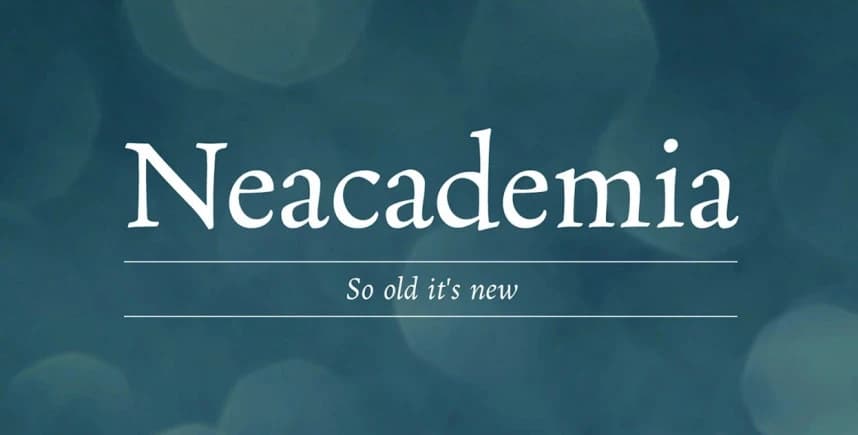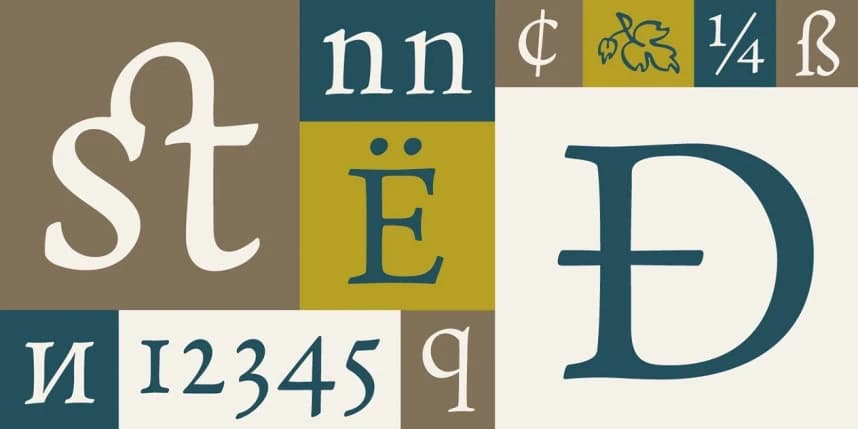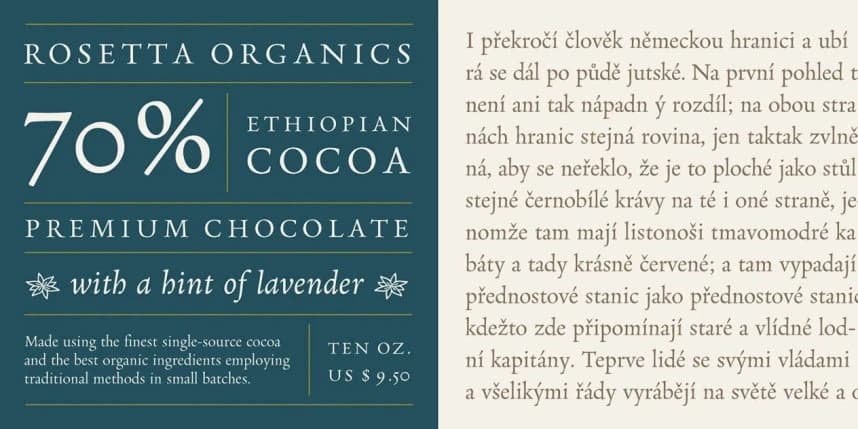
Neacademia Font Family
Neacademia Font Family is a Latin and Cyrillic type family inspired by the types cut by 15th century punchcutter Francesco Griffo for Venetian printer Aldus Manutius. Beyond the letterforms themselves, however